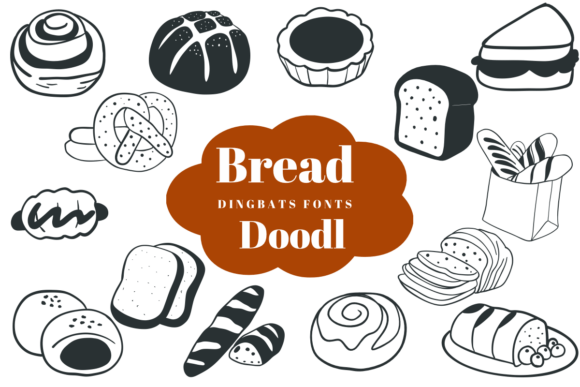
The Ultimate Guide to Bread Doodle Font: Unleashing Creativity with a Fun Dingbats Font
I’ll never forget the moment I stumbled upon the Bread Doodle font while working on a quirky project for a client who requested something “fun and playful.” I had been searching for hours, trying out font after font, but nothing seemed quite right. That was until I discovered Bread Doodle – a game-changer in the world of dingbats fonts. In this article, we’ll dive into the world of Bread Doodle, exploring its features, how to use it, and what makes it so special.
An Honest Review of Bread Doodle Font
What I Love About Bread Doodle ✨
- 🎉 It’s incredibly versatile, making it perfect for a wide range of projects, from greeting cards to social media graphics.
- ✅ The font is meticulously designed, with attention to detail that makes it stand out from other dingbats fonts.
- 💡 It’s perfect for adding a touch of whimsy and personality to any design.
- 👍 The font is easy to read and understand, even at smaller sizes.
While Bread Doodle is an amazing font, there are a few things to keep in mind:
- ⚠️ Some of the glyphs can be a bit intricate, which might make them difficult to use at very small sizes.
- 😐 The font might not be the best choice for very formal or professional projects, as it’s inherently playful.
The Backstory of Bread Doodle Font
Bread Doodle was created with the intention of bringing a bit of joy and whimsy into the world of design. The designer, inspired by childhood doodles and the simple pleasures of life, set out to craft a font that would make projects stand out. With its unique blend of playfulness and sophistication, Bread Doodle has quickly become a favorite among designers and hobbyists alike.
Q: Can I use Bread Doodle for my social media graphics?
A: Absolutely! Bread Doodle’s playful nature makes it a great choice for social media graphics, from Instagram posts to Facebook banners.
Q: Does Bread Doodle support OpenType features?
A: Yes, Bread Doodle includes OpenType features, allowing you to access a range of glyphs and stylistic alternates to enhance your designs.